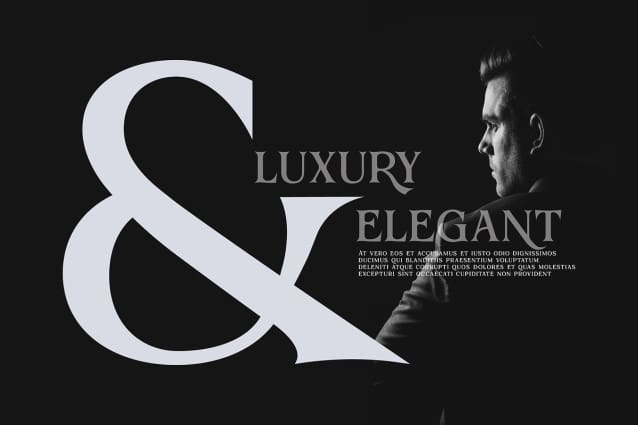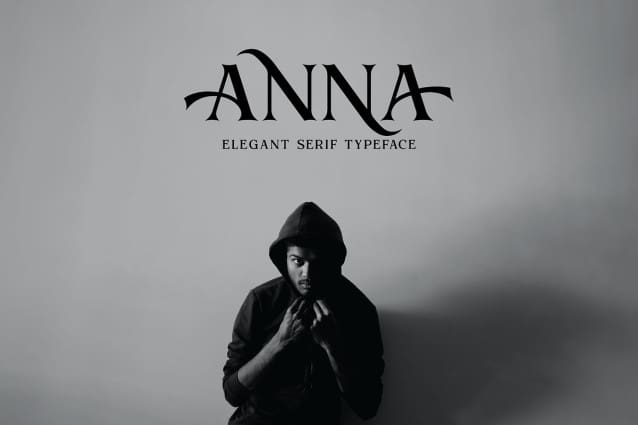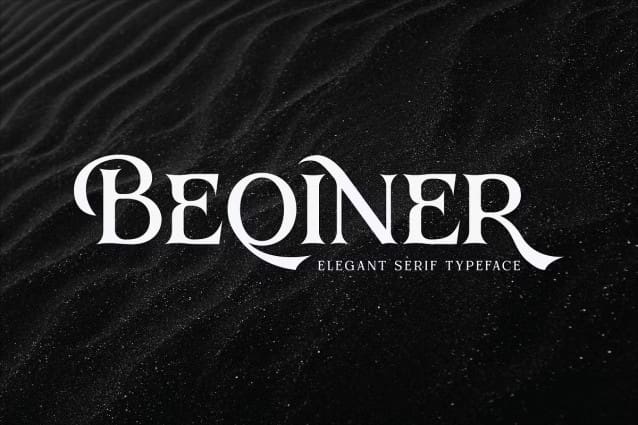
Beqiner Font
Beqiner Font, created by Denustudio, A serif modern and classic typeface that has own unique style & modern look. This typeface is perfect for an elegant & luxury logo, book or movie title design, fashion brand, magazine, clothes, lettering, quotes, and so much more.